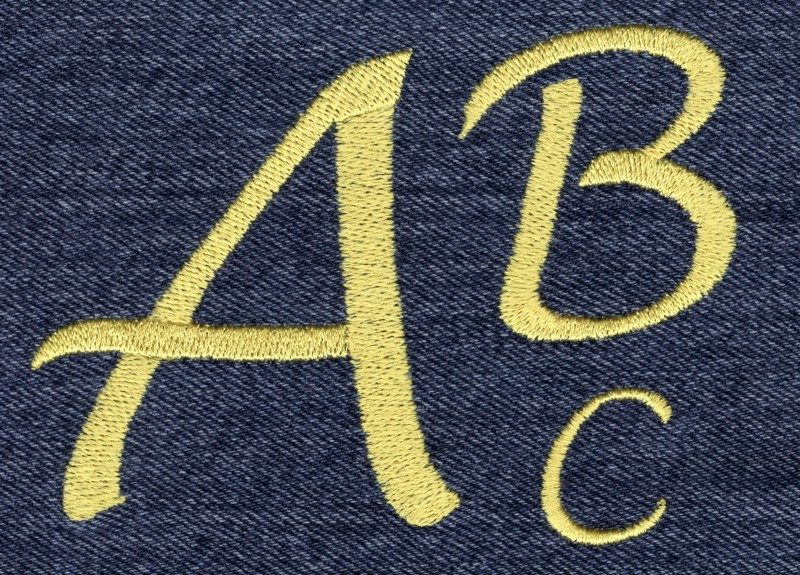
265 Lucida Satin / SatinFill Font
Lucida Satin / SatinFill font comes in .5", 1" regular Satin Stitch & 2", 3", 4" SatinFill stitch. Purchase price includes all sizes in uppercase, lowercase, numbers and punctuation marks. Many characters in the 3" and 4" sets exceed hoop limitations of some 4x4 hoops. This font is based on the Lucida Handwritten computer font.